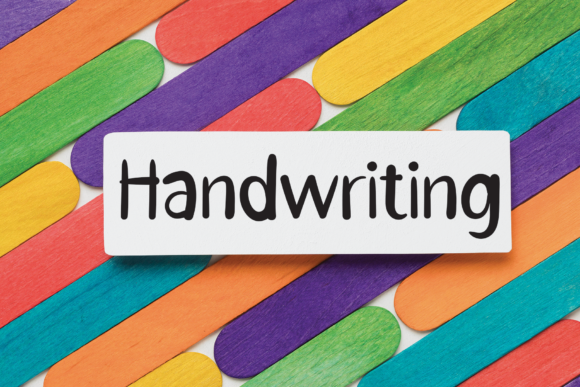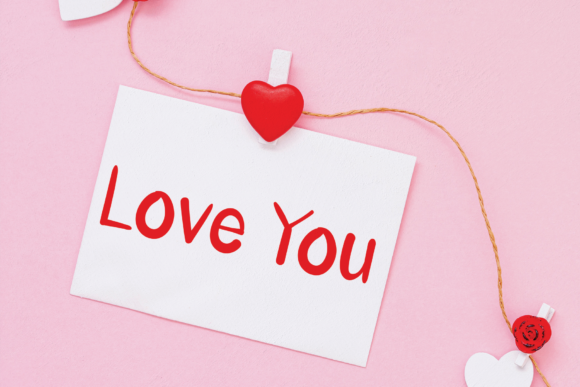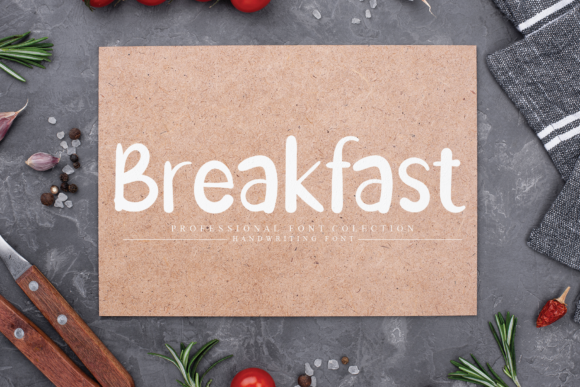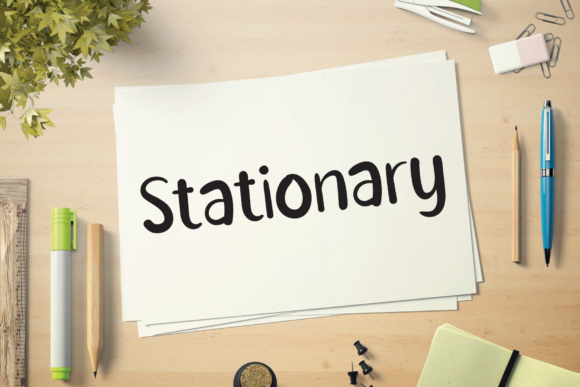
Coffee Winter Font: The Perfect Addition to Your Design Arsenal
Are you a designer or crafter looking for a font that can add a touch of warmth and coziness to your projects? Look no further than the Coffee Winter Font. This adorable handwritten font is perfect for a wide range of applications, from wall displays and wedding invitations to social media post logos and product packaging.
What Makes Coffee Winter Font So Special?
Coffee Winter Font is a cute and timeless handwritten font that is sure to capture the hearts of designers and crafters alike. Its unique and elegant design makes it perfect for a variety of projects, including:
- Wall displays and signage
- Social media post logos and graphics
- Advertisements and marketing materials
- Product packaging and design
- Labels and branding
- Photography and watermarks
Why Choose Coffee Winter Font?
There are many reasons why Coffee Winter Font stands out from the crowd. Here are just a few:
- Unique and Elegant Design: Coffee Winter Font has a distinctive and stylish design that is sure to make your projects stand out.
- Versatile: This font can be used for a wide range of projects, from formal wedding invitations to fun and playful social media graphics.
- Easy to Read: Despite its elegant design, Coffee Winter Font is easy to read and understand, making it perfect for use in a variety of contexts.
- Cute and Timeless: This font has a timeless quality that will ensure your projects remain stylish and relevant for years to come.
How to Use Coffee Winter Font
Coffee Winter Font is easy to use and can be incorporated into a variety of design projects. Here are a few tips for getting the most out of this amazing font:
- Pair it with Other Fonts: Coffee Winter Font pairs well with a variety of other fonts, so don’t be afraid to experiment and find the perfect combination for your project.
- Use it for Headings and Titles: This font is perfect for use in headings and titles, where its elegant design can really shine.
- Add it to Your Social Media Graphics: Coffee Winter Font is a great addition to social media graphics, where its cute and playful design can help your posts stand out.
Who Can Benefit from Coffee Winter Font?
Coffee Winter Font is a versatile font that can be used by a wide range of designers and crafters, including:
- Graphic Designers: Coffee Winter Font is a great addition to any graphic designer’s toolkit, where it can be used to create stunning visual effects.
- Wedding Planners and Stylists: This font is perfect for use in wedding invitations, stationery, and other wedding-related materials.
- Social Media Managers: Coffee Winter Font can add a touch of elegance and sophistication to social media graphics and posts.
- Crafters and Small Business Owners: This font is a great choice for crafters and small business owners looking to add a personal touch to their branding and marketing materials.
Coffee Winter Font is a unique and versatile font that is perfect for designers and crafters looking to add a touch of warmth and coziness to their projects. With its elegant design, easy readability, and cute and timeless style, this font is sure to become a favorite in your design arsenal. So why wait? Download Coffee Winter Font today and start creating stunning designs that will capture the hearts of your audience.